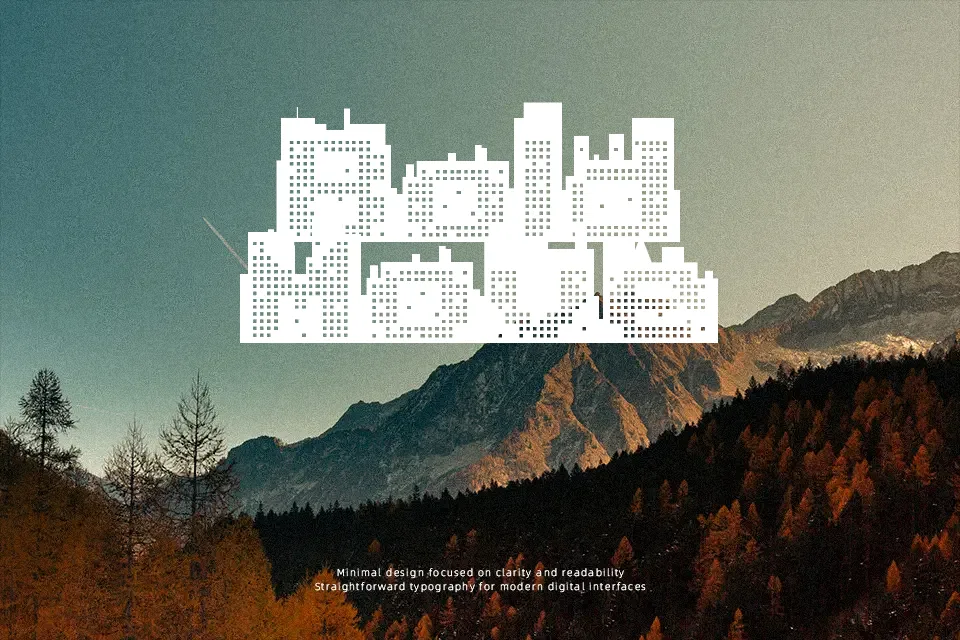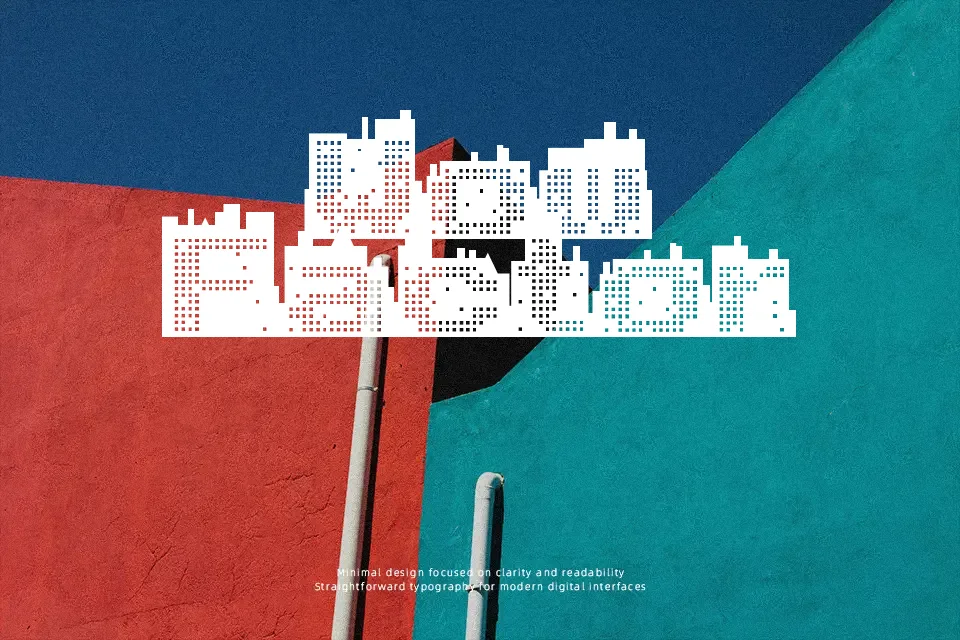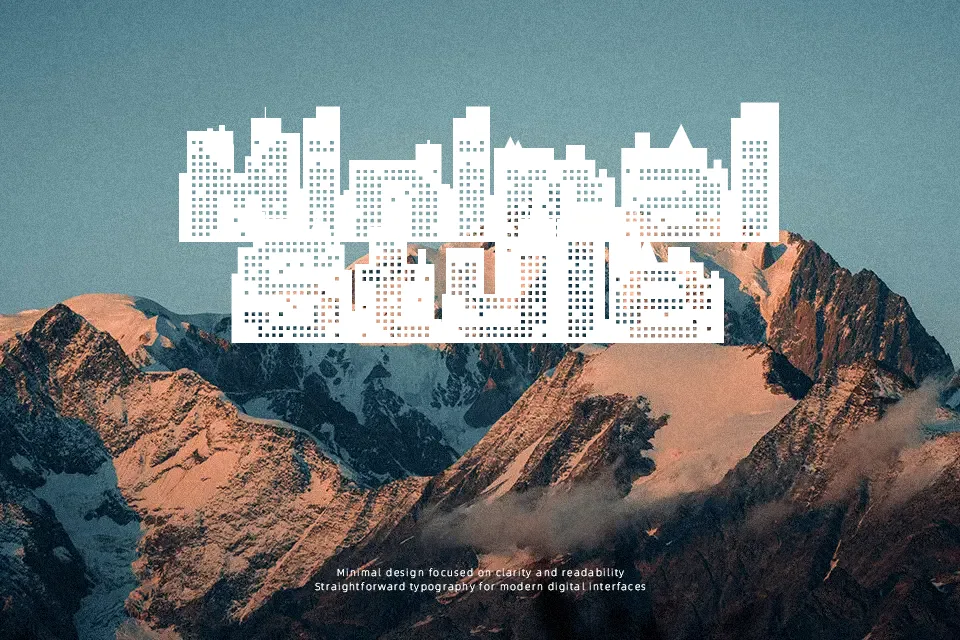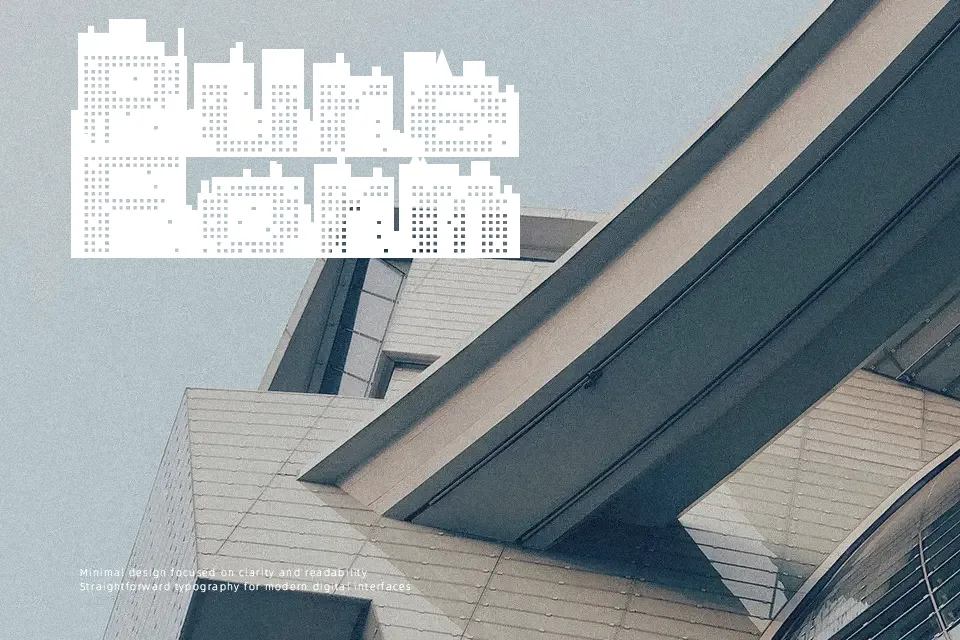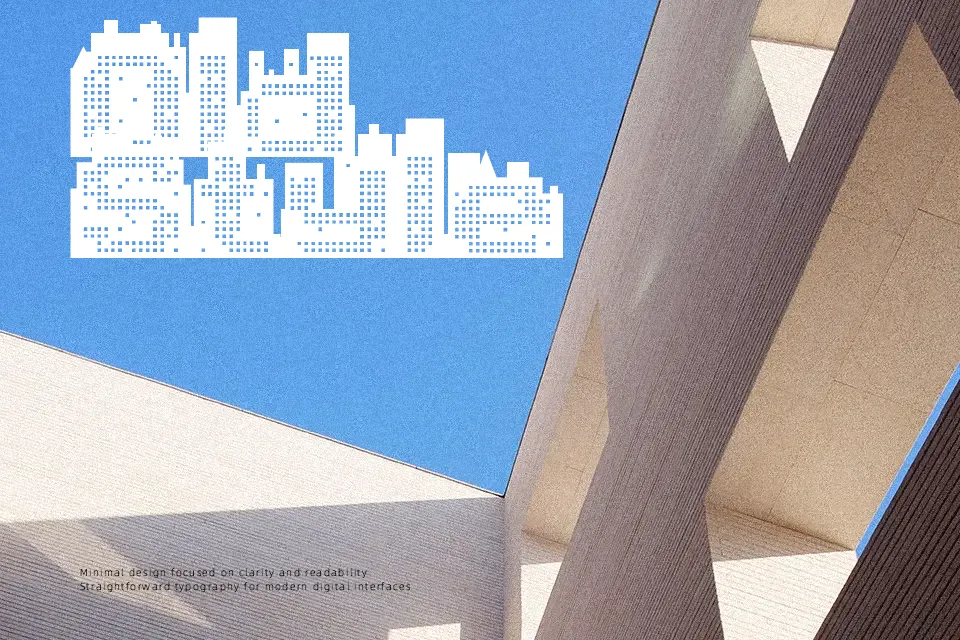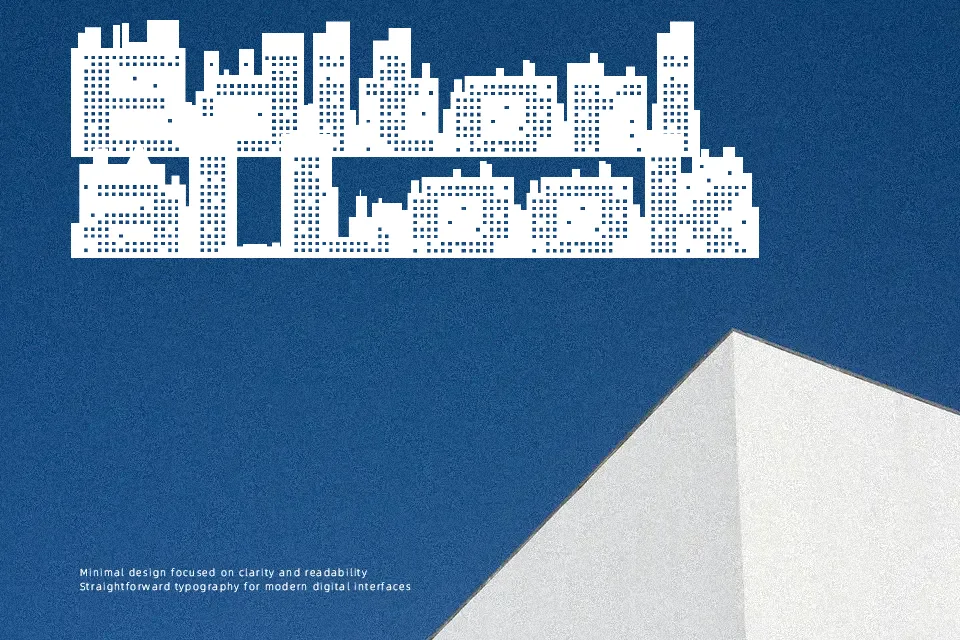
SuperSkyline Font
Designed by Jeff Bensch
SuperSkyline Font combines bold display proportions with intricate architectural silhouettes embedded directly into each character. Solid block foundations support stepped skyscraper outlines, creating a striking skyline silhouette across display headers and urban merchandise. The consistent vertical rhythm and tight spacing preserve legibility at substantial sizes, allowing titles to command visual attention effortlessly. However, the complex decorative silhouettes lose definition when scaled down, making the design less effective for multi-line body copy or compact interface labels. When deployed for large architectural festival posters or skyline-themed album covers, the typeface delivers memorable thematic impact while maintaining structural balance across all primary letterforms.
Best For: city travel posters, architectural festival banners, urban clothing graphics, skyline merchandise
Not Ideal For: continuous reading copy, small UI captions, mobile system labels, corporate reports
Perfect for advertising, branding, and headline, with a artistic and decorative style.